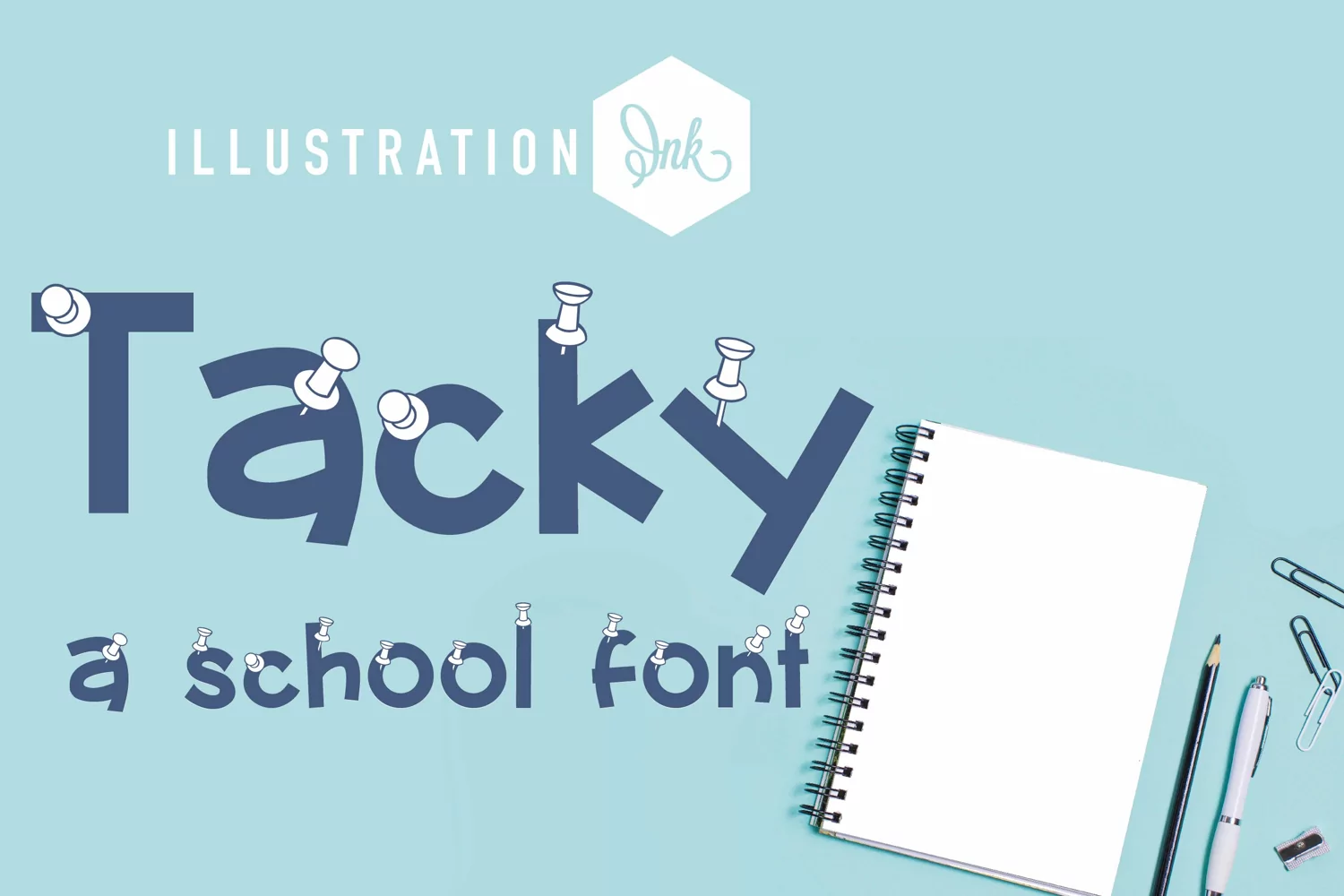
This hand-crafted print font has little illustrated thumbtacks throughout.
A handcrafted font is a font that is designed to look like it was written by hand. It is often used for invitations, greeting cards, and other items. Handwritten fonts can be either formal or informal, and they can be used for a variety of purposes.